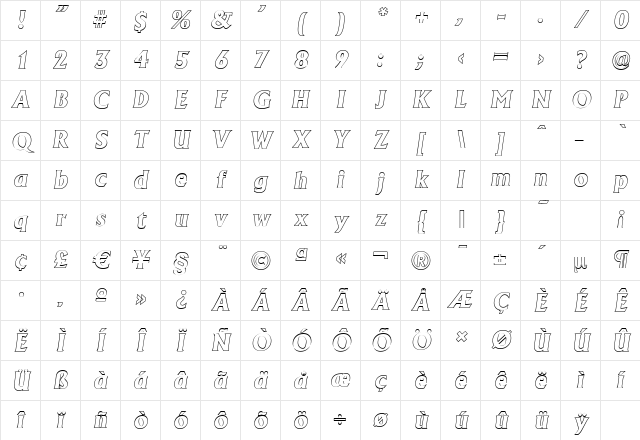
Complete AdelonOutline-Xbold Italic glyph index. Displaying only characters natively supported by AdelonOutline-Xbold Italic font.
AdelonOutline-Xbold is built around its visual character rather than neutral utility - its distinctive forms are designed to make an impression at display sizes. The slanted form adds forward momentum and visual energy. Its bold stroke weight gives it real presence on the page.
Font Pairing: Pair with a clean neutral sans-serif for body copy to let AdelonOutline-Xbold's character lead without overwhelming the composition.
Pro Tip: Use AdelonOutline-Xbold exclusively at display sizes - it was designed to be seen, not read at length. Let a neutral companion handle body copy.